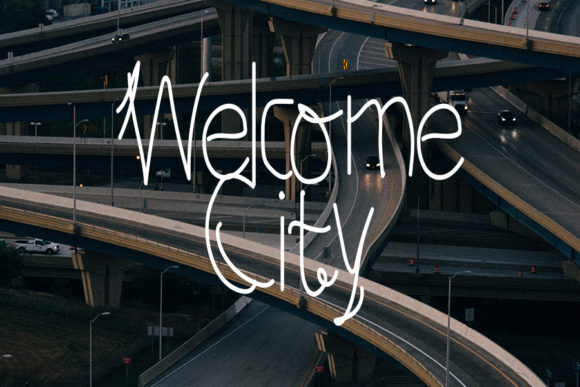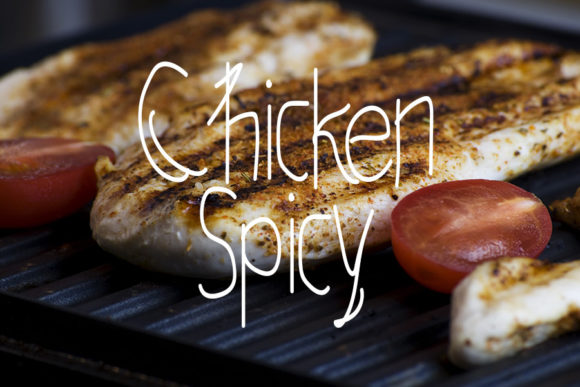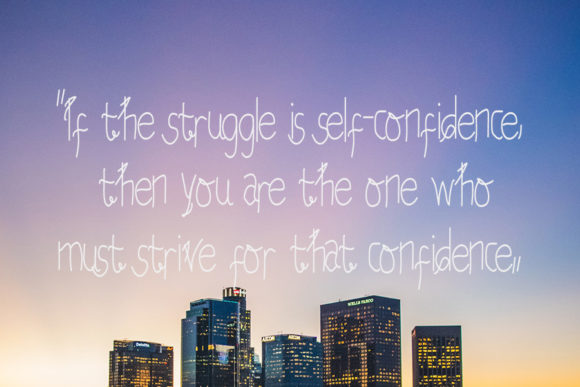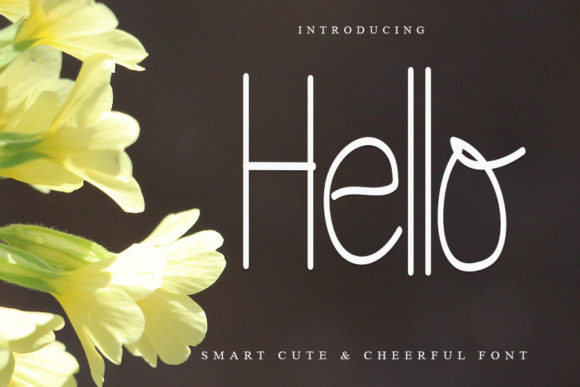
Hello Font: The Cute and Simple Lettered Handwritten Font for Designers and Crafters
Are you a designer or crafter looking for a font that can add a personal and realistic feel to your designs? Look no further than Hello Font! This adorable and simple lettered handwritten font is perfect for all your chalkboard quotes, teaching materials, and more. In this article, we’ll dive into the features and benefits of Hello Font, and explore how you can use it to elevate your designs.
What is Hello Font?
Hello Font is a cute and simple lettered handwritten font that is designed to mimic the look of authentic chalkboard writing. Its unique and charming style makes it perfect for adding a personal touch to your designs, whether you’re creating chalkboard quotes, teaching materials, or social media graphics.
Key Features of Hello Font
• Cute and Simple Design: Hello Font features a simple and adorable design that is easy to read and looks great in any design.
• Authentic Look: The font’s authentic look will add a personal and realistic feel to your designs, making them stand out from the crowd.
• Handwritten Style: Hello Font’s handwritten style gives it a unique and charming feel that is perfect for adding a personal touch to your designs.
• Chalkboard-Inspired: The font’s chalkboard-inspired design makes it perfect for creating chalkboard quotes, teaching materials, and other designs that require a classic and timeless look.
Benefits of Using Hello Font
There are many benefits to using Hello Font in your designs. Here are just a few:
• Easily Readable: Hello Font is easy to read, making it perfect for designs that require a clear and concise message.
• Versatile: The font’s simple and classic design makes it versatile and easy to use in a variety of designs, from chalkboard quotes to social media graphics.
• Time-Saving: With Hello Font, you can create professional-looking designs in no time, saving you time and effort.
• Unique and Charming: The font’s unique and charming style will add a personal touch to your designs, making them stand out from the crowd.
How to Use Hello Font in Your Designs
Using Hello Font in your designs is easy! Here are a few tips to get you started:
• Pair it with Other Fonts: Hello Font pairs well with other fonts, so feel free to experiment with different combinations to find the perfect look for your design.
• Use it for Chalkboard Quotes: Hello Font is perfect for creating chalkboard quotes, so try using it to add a personal touch to your quotes and sayings.
• Add it to Your Teaching Materials: The font’s clear and concise design makes it perfect for teaching materials, such as worksheets, handouts, and presentations.
• Use it for Social Media Graphics: Hello Font is also great for social media graphics, such as Instagram posts and Facebook graphics.
Hello Font is a cute and simple lettered handwritten font that is perfect for designers and crafters looking to add a personal and realistic feel to their designs. With its authentic look, versatile design, and easy-to-read style, Hello Font is the perfect choice for all your chalkboard quotes, teaching materials, and social media graphics. So why wait? Download Hello Font today and start creating beautiful and unique designs that will stand out from the crowd!